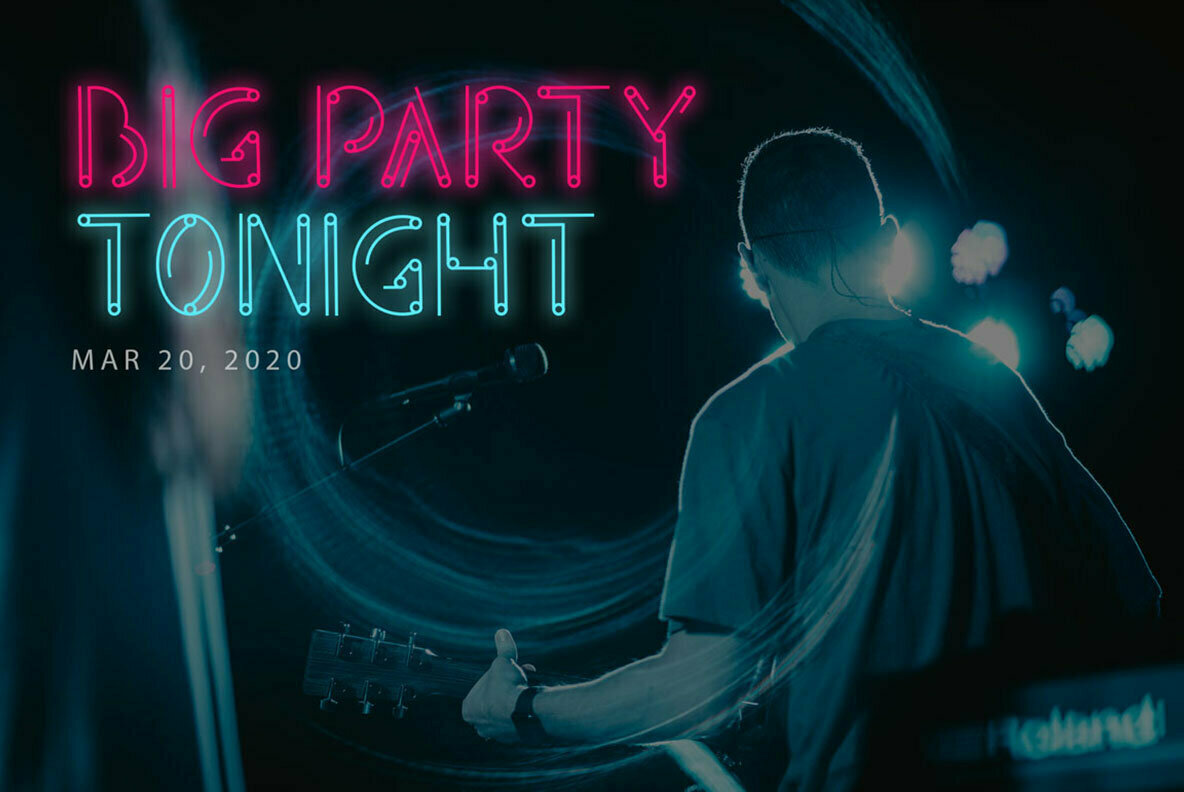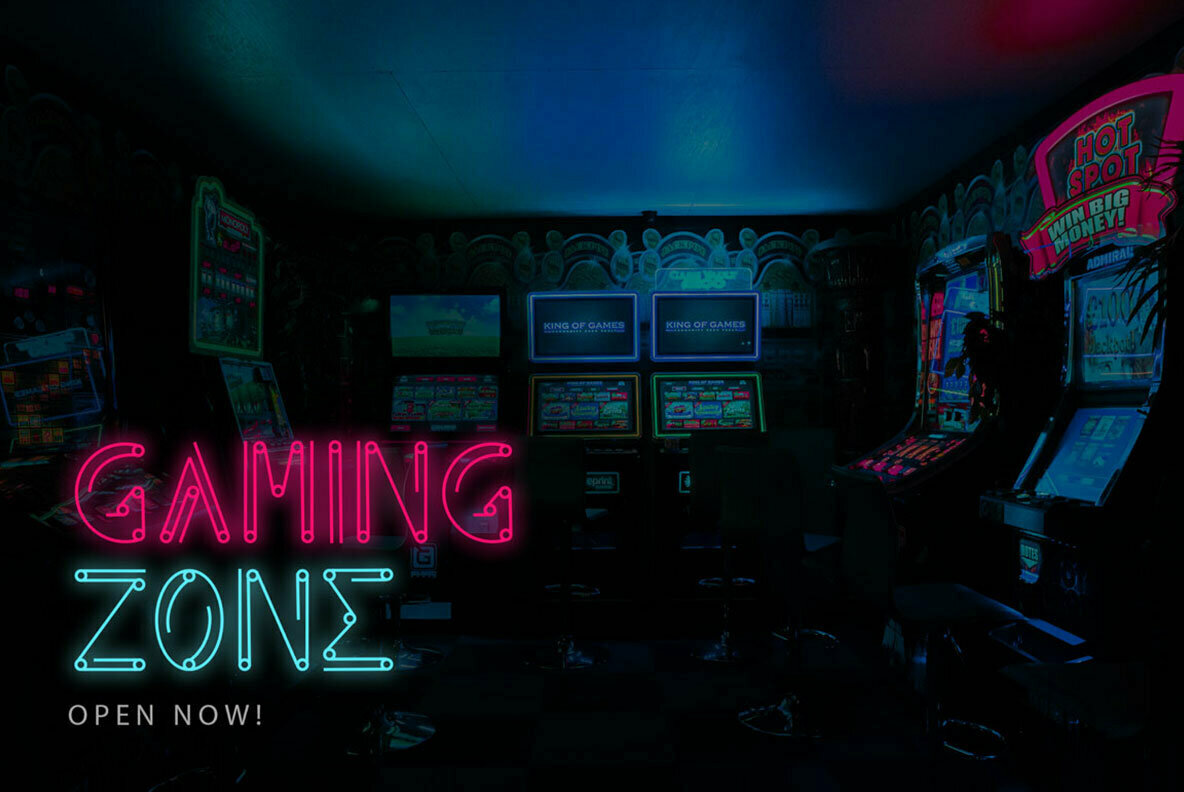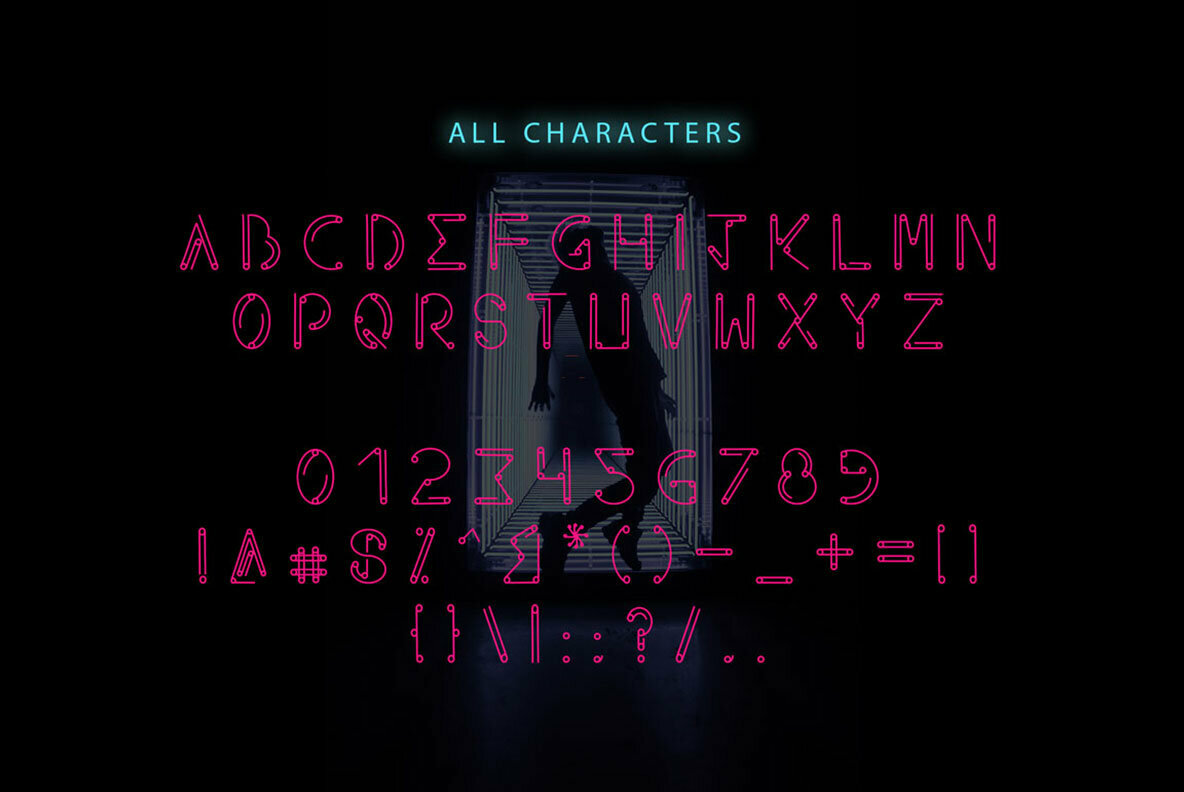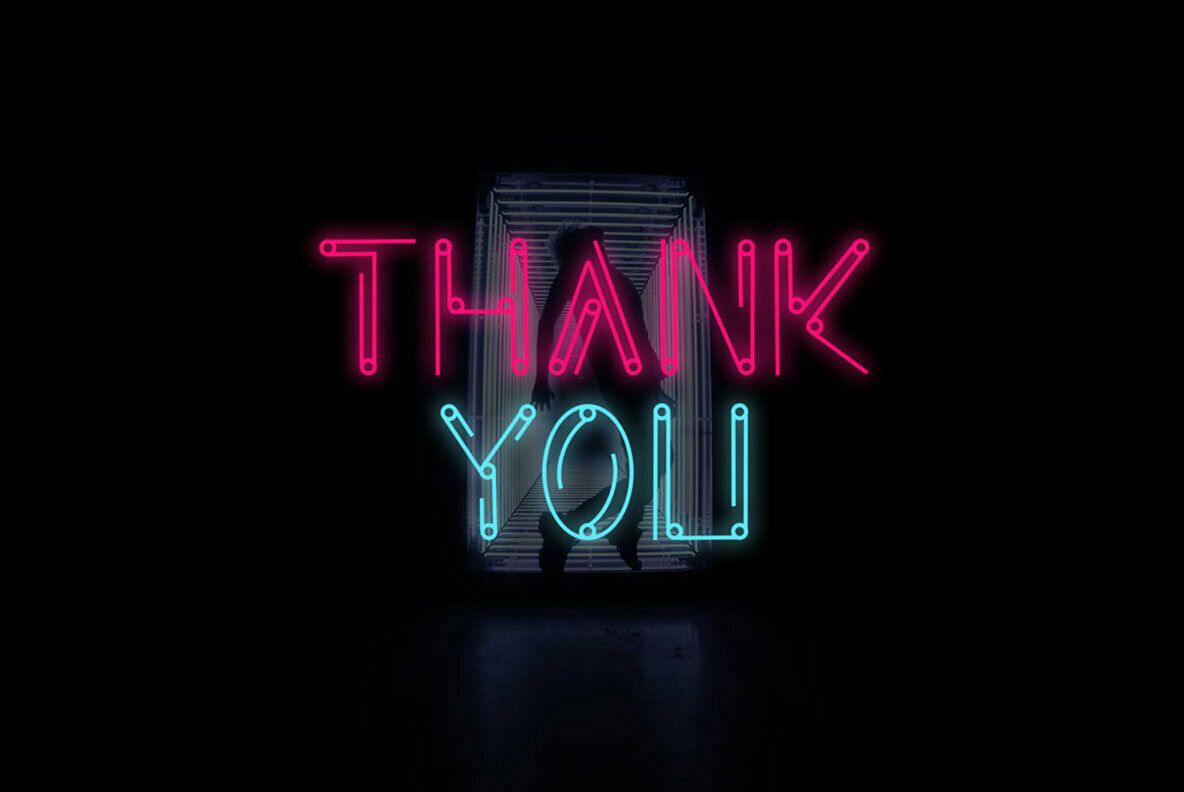
Axeon Font
Axeon Regular
Axeon captures the essence of a futuristic and stylish design, bringing elegance to every letter. Whether you are exploring sci-fi themes or creating sleek visuals, this typeface offers readability and style in equal measure. Perfect for professional projects, Axeon is a versatile choice for an array of creative expressions. It complements designs that demand a modern touch, such as logos, posters, t-shirts, and headlines. This typeface also excels in branding, advertisements, and social media graphics, offering a stylish edge to your visual communication efforts.Axeon: A Modern Futuristic Typeface